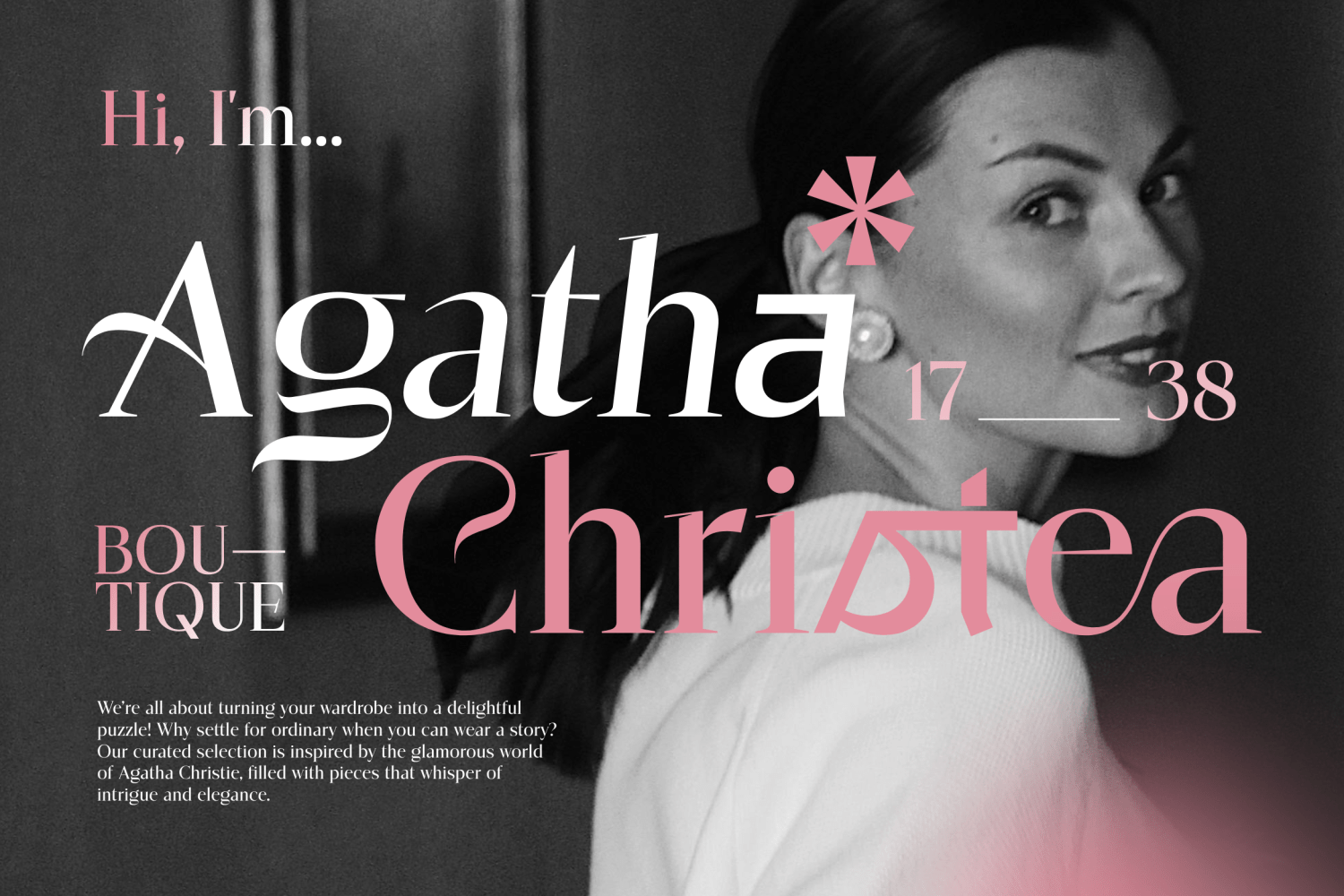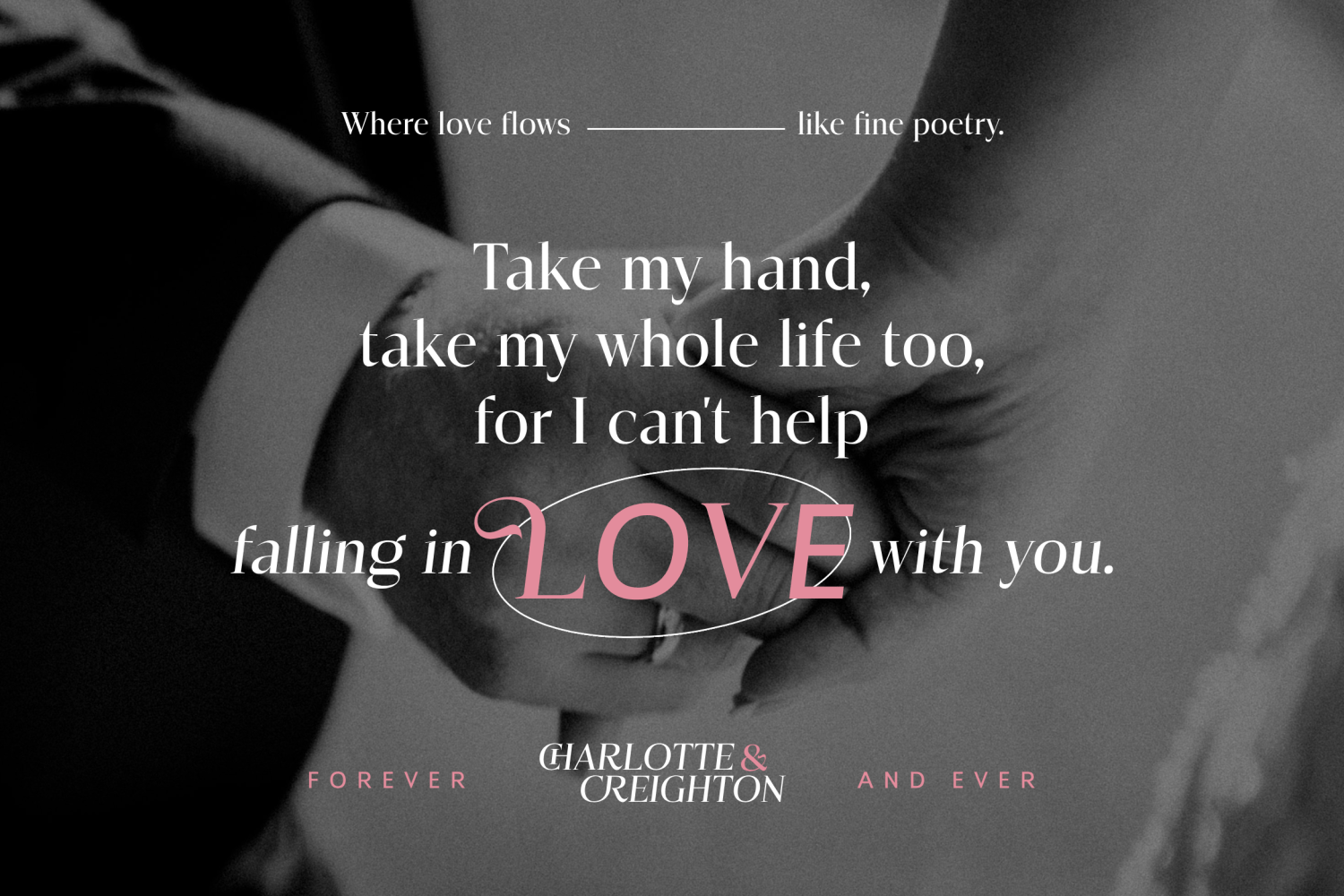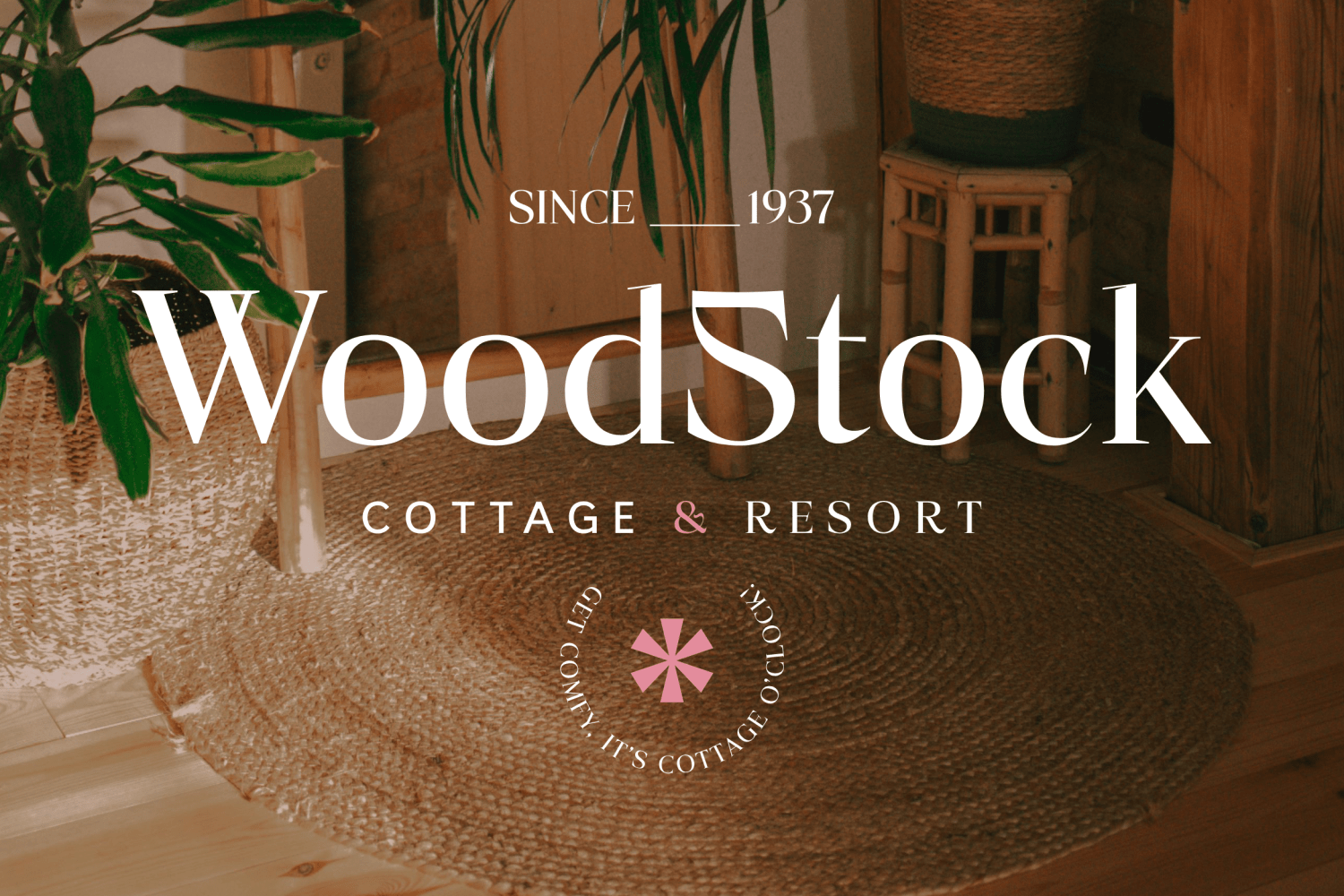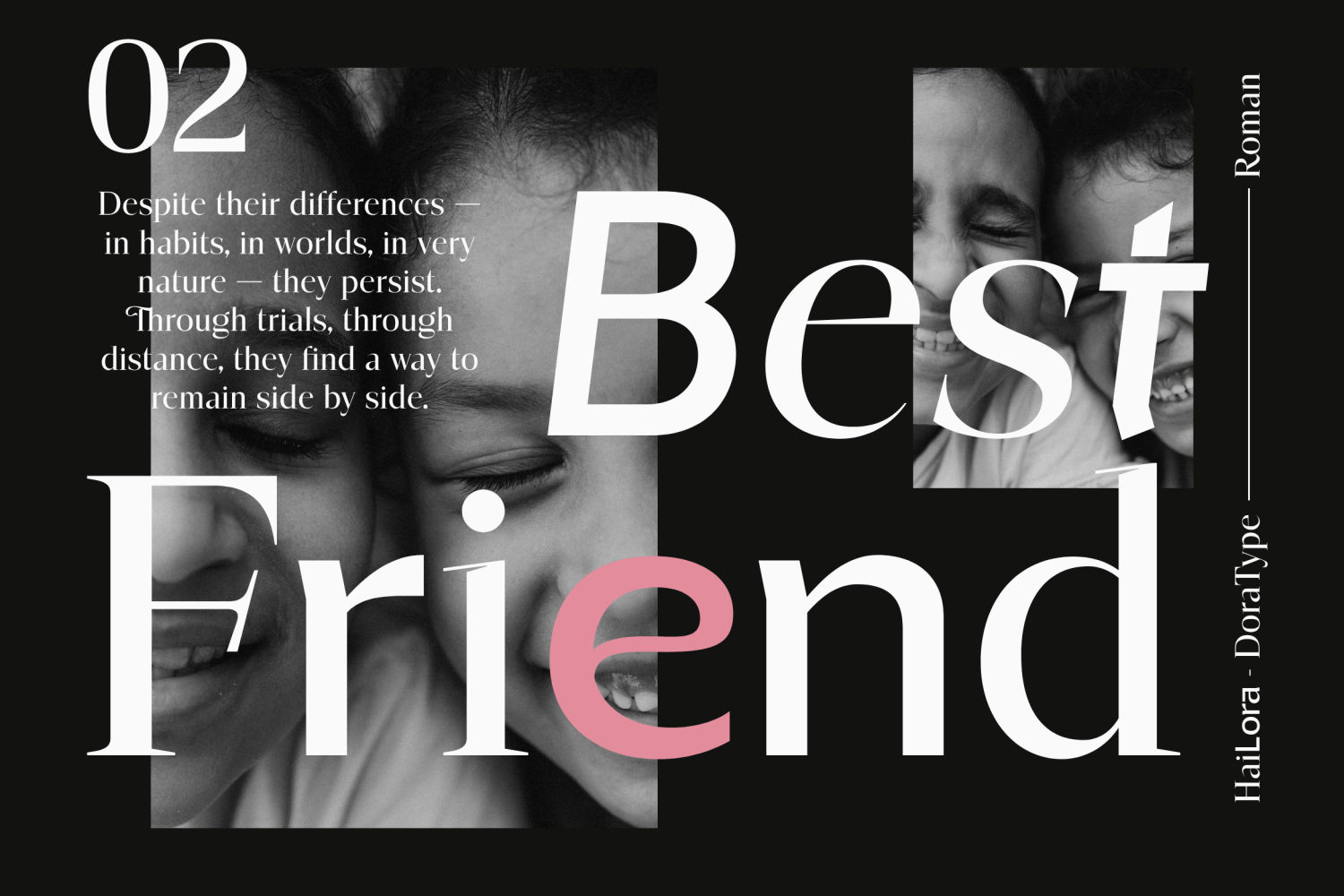
About Hailora
Introducing Hailora is an entirely new, creative & unique font duo. This combination also helps unite the two different styles of serif and sans serif wisely combined in one font where the serif makes it modern, and the alternative sans font…